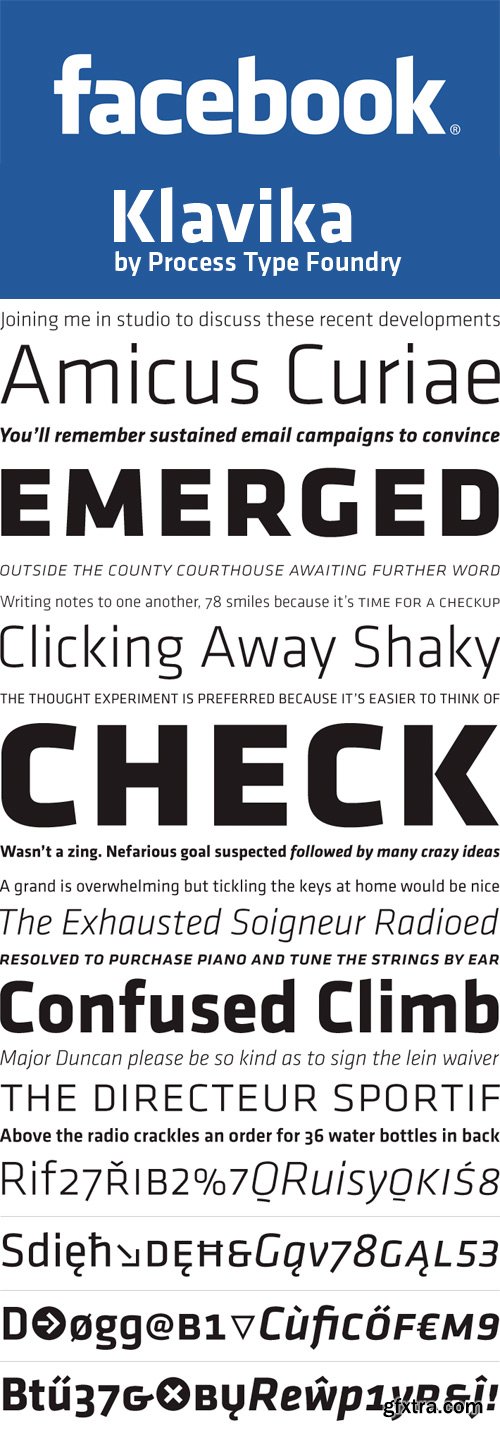
Klavika Font Family
Klavika is a flexible family of sans serifs for editorial and identity design. Features such as small caps, true italics, extended language support and multiple numeral styles make Klavika an ideal workhorse typeface. It is also popular for its use of Facebook’s main logo.